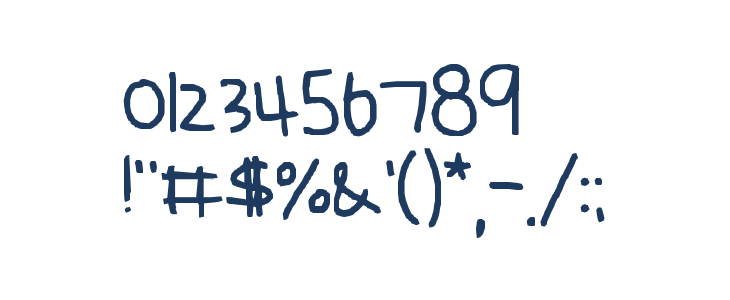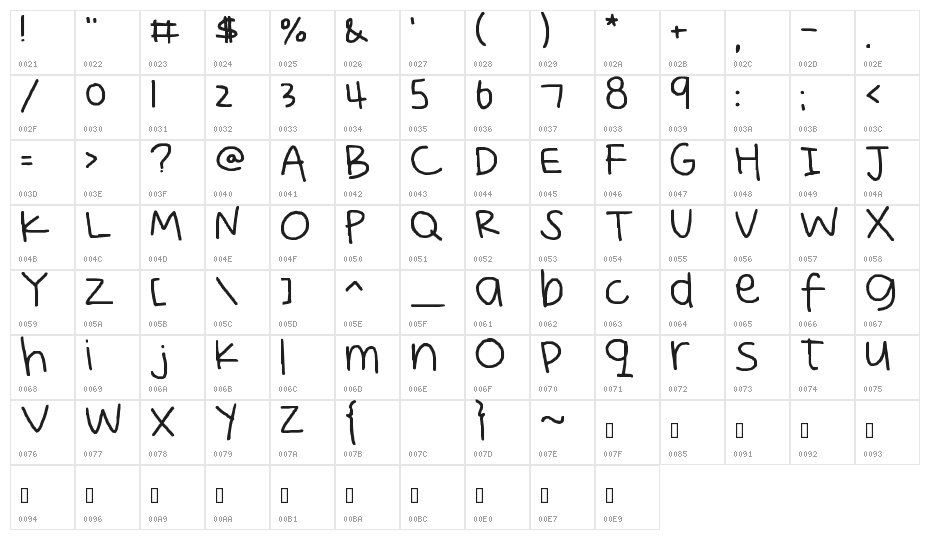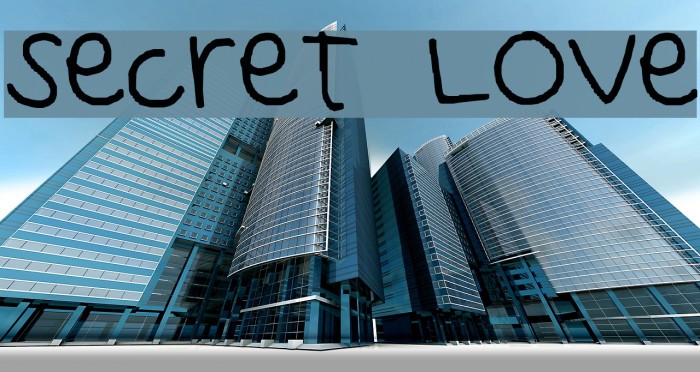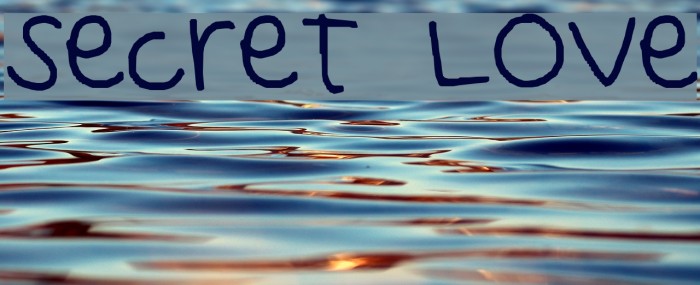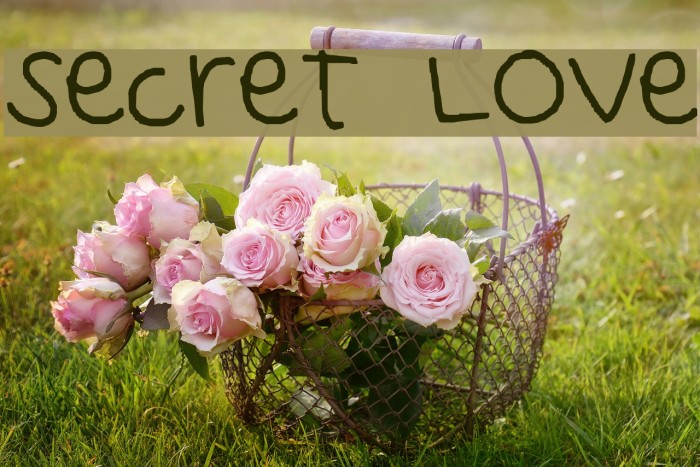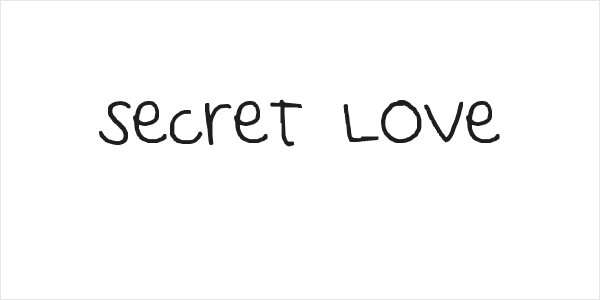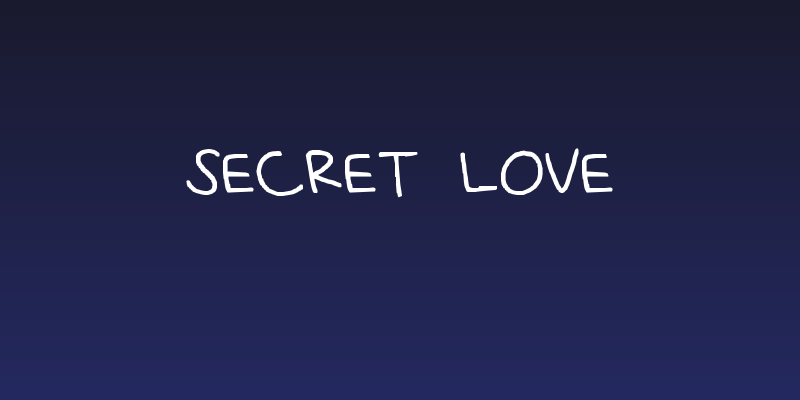
Secret Love Font
Secret Love Description
This font exudes a playful and casual handwritten style, characterized by its irregular strokes and informal appearance. The letters are slightly uneven, giving it a personal and approachable feel. The uppercase and lowercase letters maintain a consistent style, with rounded edges and a slight tilt, adding to its whimsical charm. The numerals and special characters follow the same playful aesthetic, making it suitable for projects that require a touch of personality and warmth. Its overall design is reminiscent of a child's handwriting, making it ideal for creative and fun applications.
| Proposed Projects | Ideal for children's books, greeting cards, playful branding, and informal invitations. |